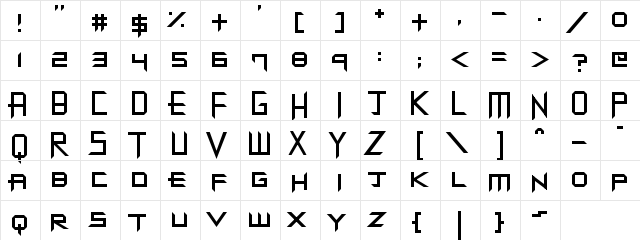
Dubstep Dungeons Regular
| Designer | Darrell Flood |
Design Context for Dubstep Dungeons Typeface
Dubstep Dungeons is a composed and adaptable typeface that performs quietly and consistently across a wide range of design contexts.